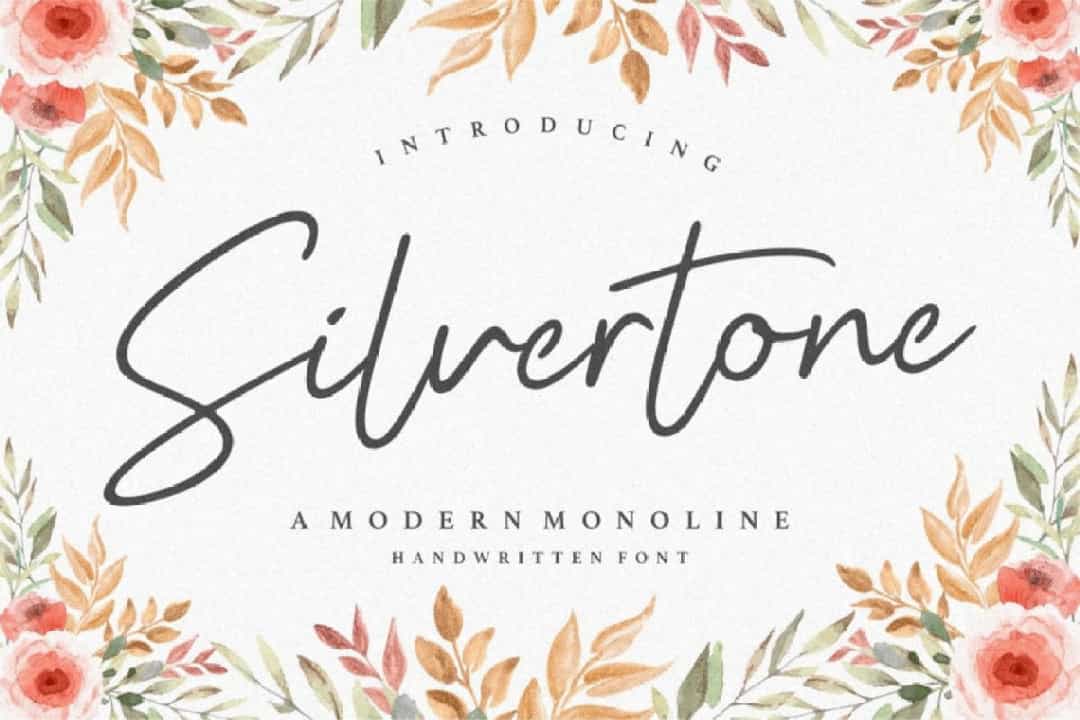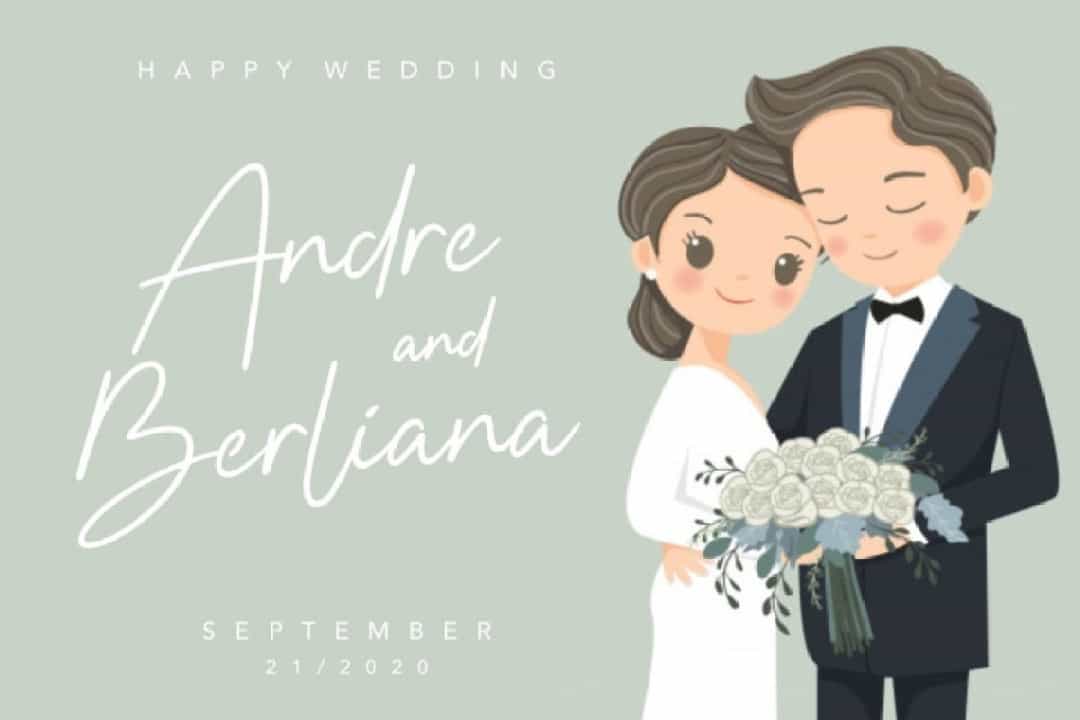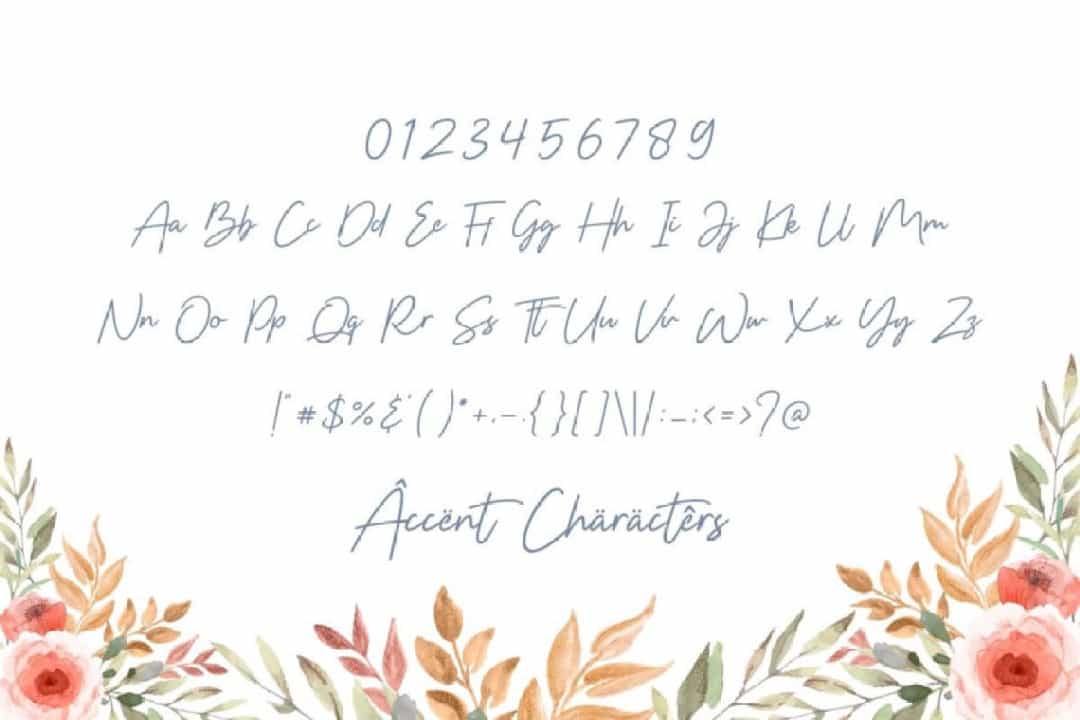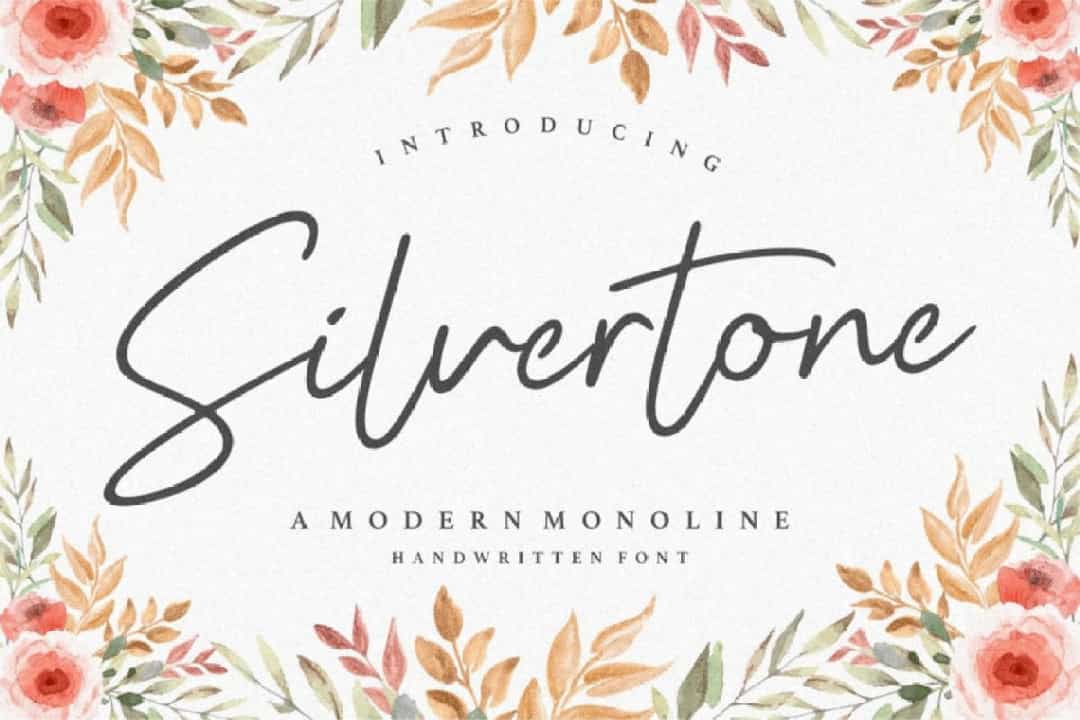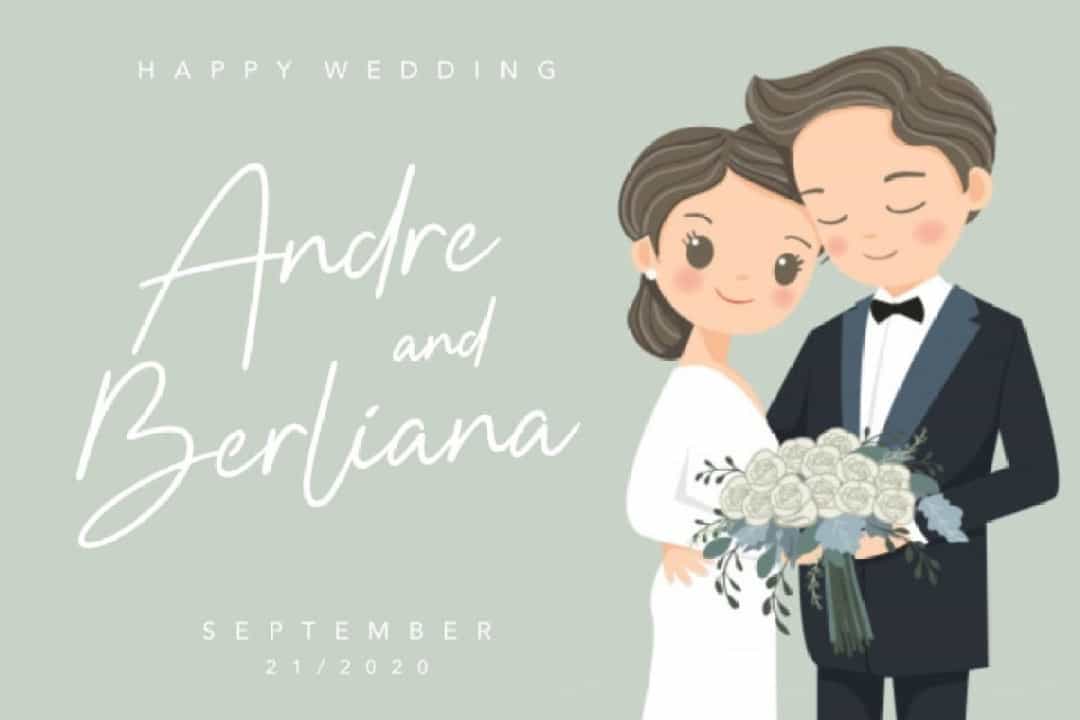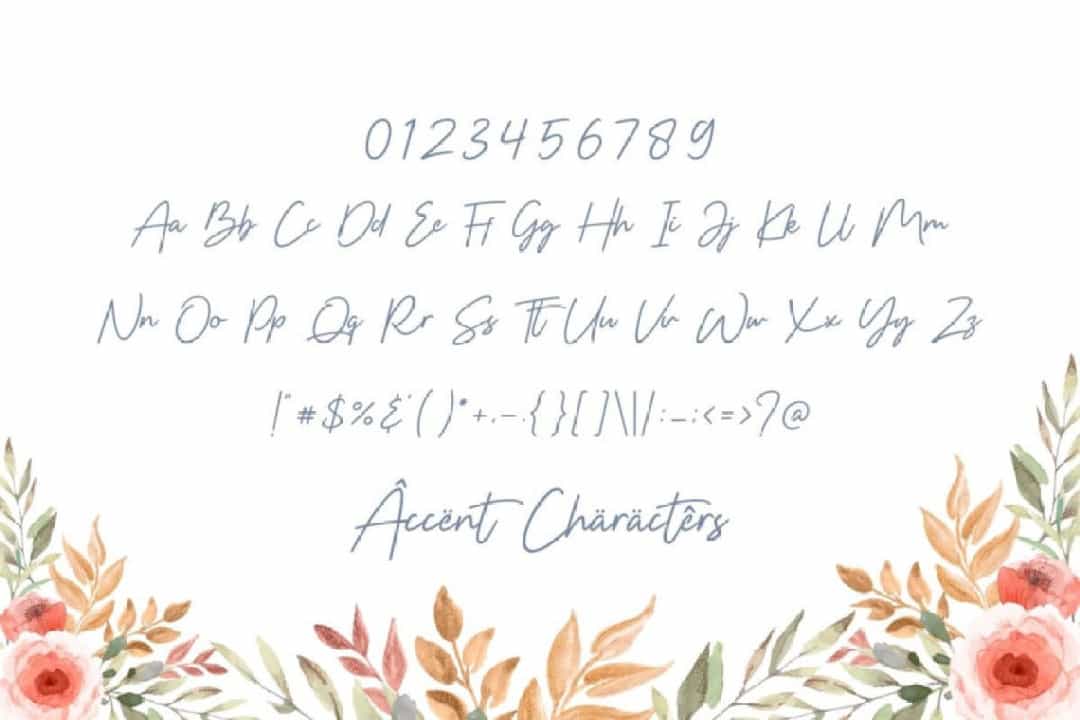
It can be said that Silvertone is a contemporary handwritten monoline font. Great for logo, box, work, periodical, wedding, or social networks. Also supports TTF files for easy download and is also multilingual – Silvertone also multilingual support!